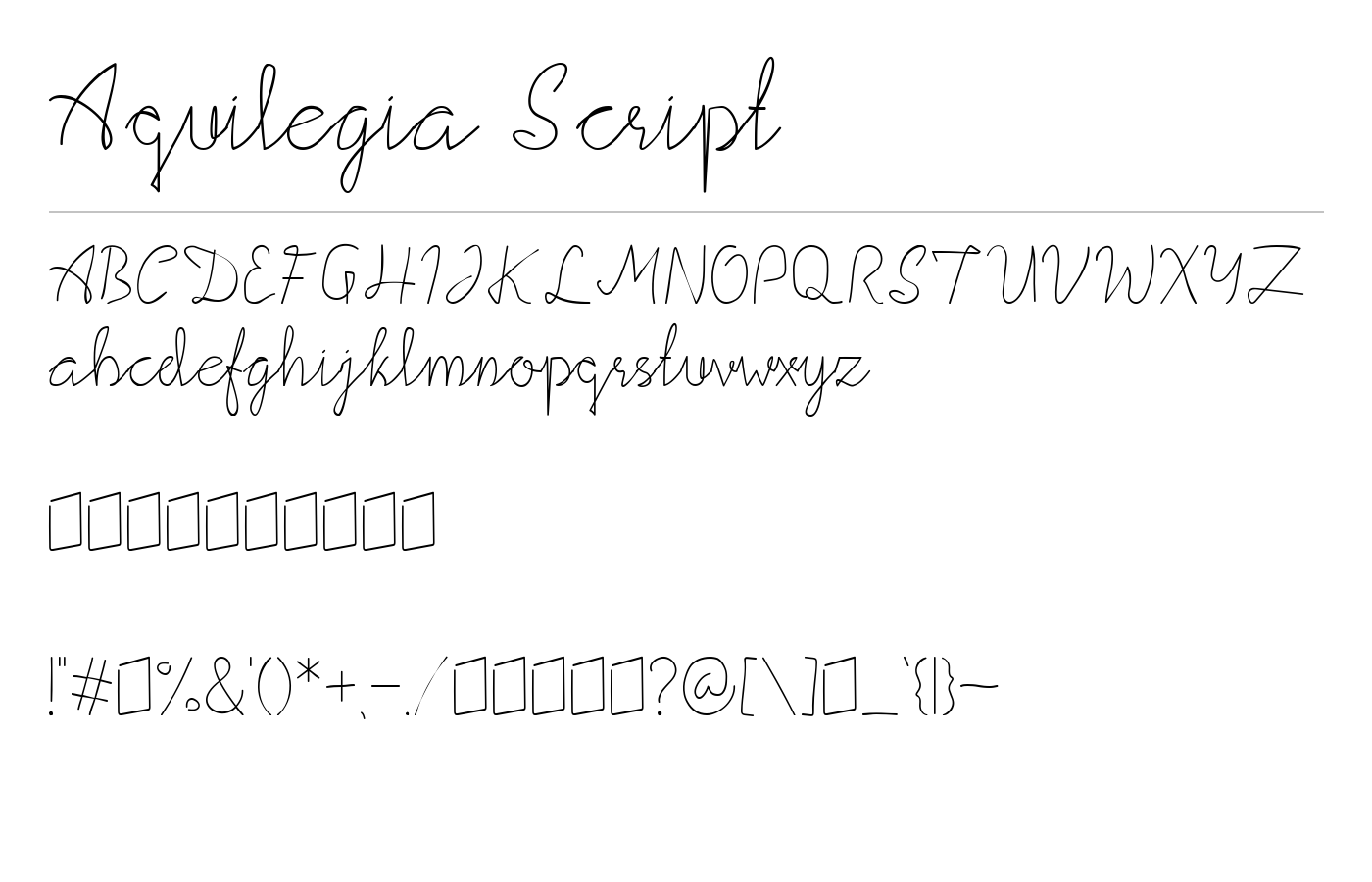
Aquilegia Script is a delicate, handwritten script font characterized by its thin, flowing strokes and casual elegance. Its slender, tall letterforms with subtle unevenness give it a personal and artistic feel, making it ideal for creative projects, invitations, and branding that seek a charming, approachable, and slightly whimsical touch. This font works beautifully in contexts where a light, airy, and handwritten style enhances a warm and intimate atmosphere.
Aquilegia Script Font
About Aquilegia Script Font